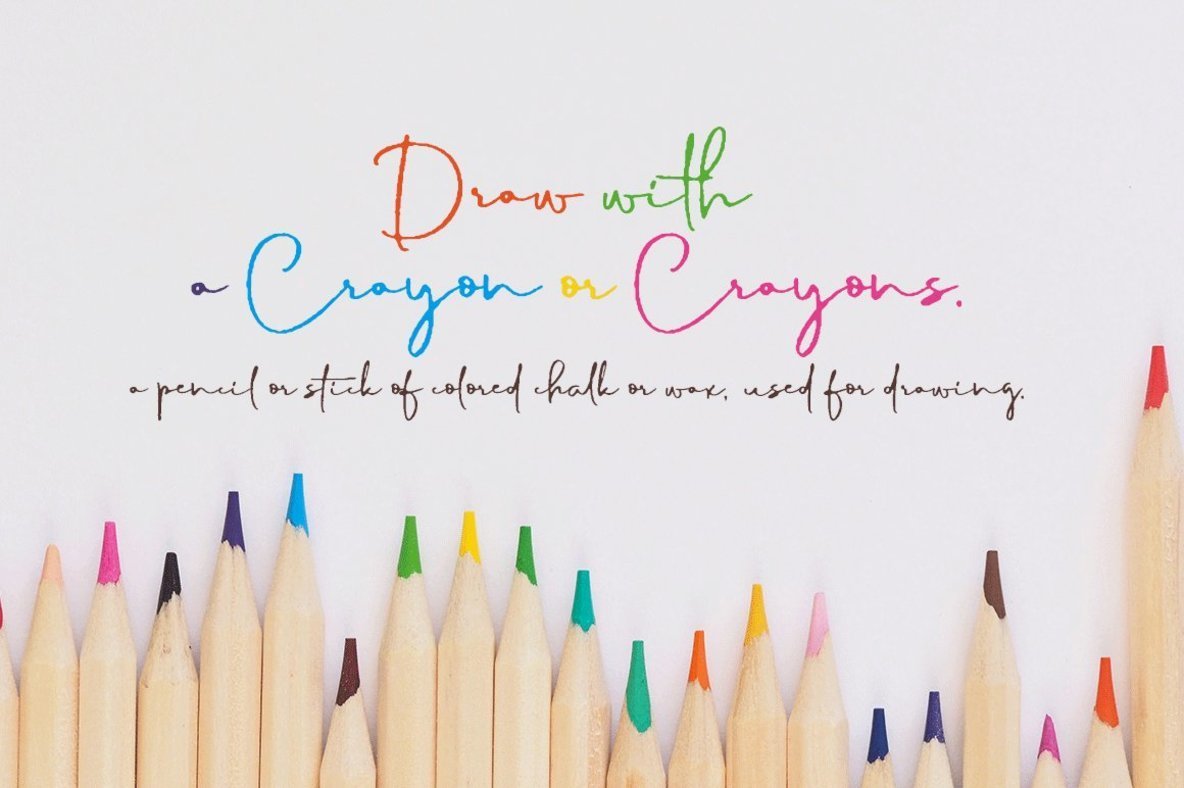
Merry Hamida Font
Merry Hamida
The Merry Hamida font brings a personal touch to your designs, drawing inspiration from genuine handwriting crafted with a liquid ink pen. Its distinct monoline style offers a fluid and natural aesthetic, making it an excellent choice for various applications including invitations and signatures.Merry Hamida: Handwritten Impression with Monoline Charm